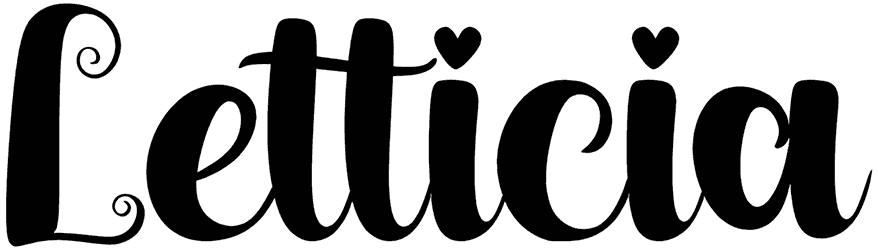
Letticia Font
Letticia has calligraphic letters with a texture and personality that gives your writings an elegant and old-fashioned feel. This love font is suitable for adding bold and original characters to quotes, clothing designs, and posters. In addition, it has a smooth and attractive texture that is great for giving your projects a handmade feel and can help graphic artists’ designs stand out.